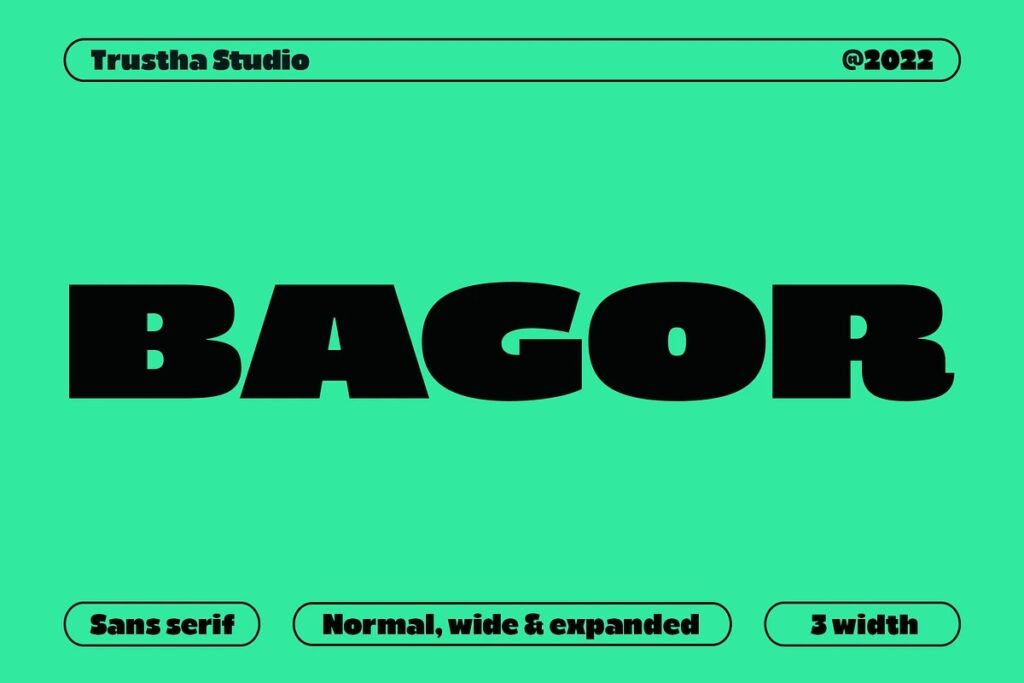
Bagor Font: A Bold, Versatile Typeface for Your Design Needs
If you’re searching for a modern sans-serif typeface with a bold and heavy touch, the Bagor Font is the perfect solution. Offering a clean, contemporary design across multiple styles, Bagor is a versatile typeface that can enhance your projects, from branding to headlines and beyond.
What is Bagor Font?
The Bagor Font is a sans-serif typeface designed with a big x-height and small ascender, giving it a bold, distinct appearance. It comes in 3 widths—normal, wide, and expanded—each with a round version, resulting in 6 unique styles. This makes Bagor a highly flexible font choice for designers looking to create impactful visuals. Whether you’re working on branding, titles, or posters, Bagor ensures your message stands out.
Key Features of Bagor Font
Multiple Styles and Widths:Bagor includes 3 different widths—normal, wide, and expanded—each with a round version, giving you 6 total styles to work with. This range of options allows for flexibility in various design contexts.
Bold Sans-Serif Design:With a big x-height and small ascender, Bagor creates a bold and heavy visual presence, making it an excellent choice for eye-catching titles and headlines.
Ligatures & Stylistic Sets:Bagor comes equipped with ligatures and alternative glyphs, providing additional design options for creative typography. This makes it easier to customize and experiment with your designs.
Multilingual Support:Bagor supports international characters, making it ideal for projects that require multilingual communication.
Perfect for Branding and Headline Design:The bold, expanded look of Bagor makes it perfect for branding projects, logos, headlines, and titles, ensuring that your design will capture attention.
How to Use Bagor Font in Your Designs
With its versatile styles and bold appearance, Bagor Font is suitable for a wide range of design projects:
Branding & Logos: Bagor’s bold and heavy look makes it ideal for creating memorable logos and strong brand identities.
Headlines & Titles: Whether for websites or printed materials, Bagor ensures that your headlines grab attention and are easy to read.
Posters & Social Media: Use the expanded or wide versions to make a bold statement on posters or social media graphics.
Why Choose Bagor Font?
Here are just a few reasons why Bagor Font should be in your design toolkit:
Variety: With 6 distinct styles, Bagor provides ample flexibility for various design needs.
Creative Control: With ligatures, stylistic sets, and alternative glyphs, you can customize your typography to suit your project.
Global Appeal: Thanks to its multilingual support, Bagor can be used for designs targeting international audiences.